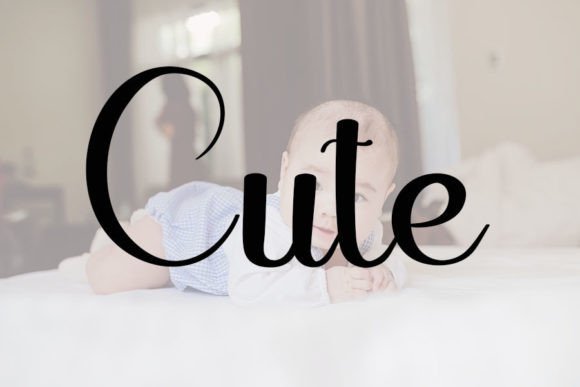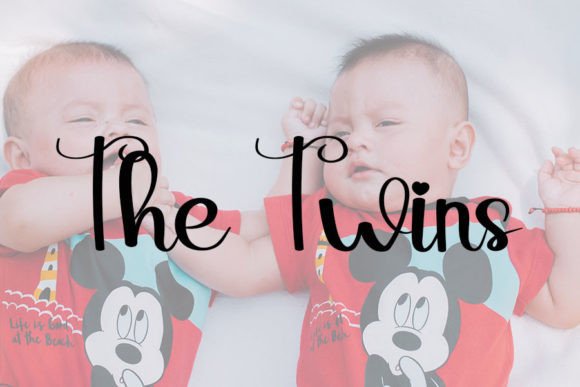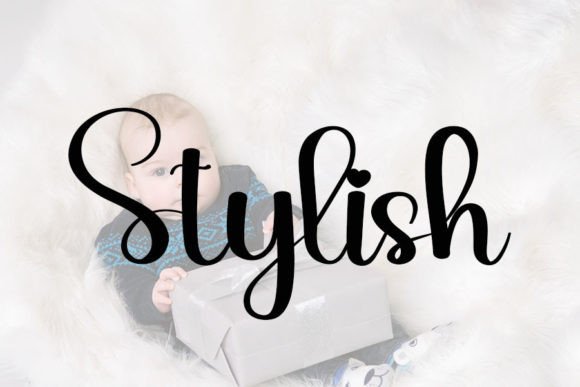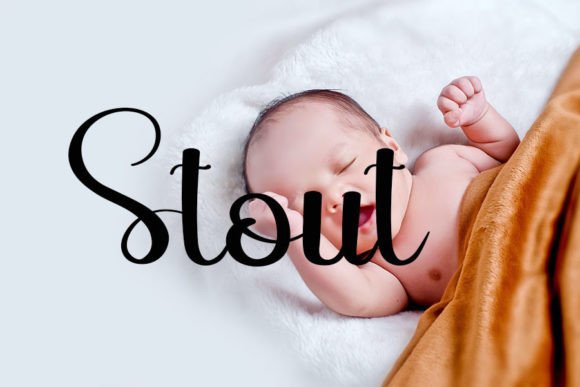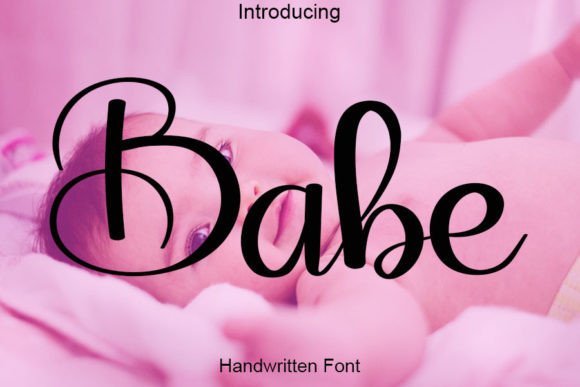
Babe Font: The Elegant and Timeless Choice for Your Design Projects
Are you looking for a font that exudes elegance and sophistication? Look no further than the Babe Font! This beautiful handwritten font is described by its elegant touch, making it perfect for designers and crafters who want to add a touch of class to their projects. With its incredibly distinct and timeless style, Babe Font is sure to fall in love with your favorite designs.
What Makes Babe Font So Special?
Babe Font is a unique and stunning handwritten font that is sure to make your designs stand out. Its elegant touch gives it a sophisticated and refined feel, making it perfect for a wide range of projects, from wedding invitations and branding materials to social media graphics and more. The font’s distinct style is both classic and modern, making it a versatile choice for any design project.
Key Features of Babe Font
- Elegant and Refined: Babe Font is a beautifully crafted handwritten font that exudes elegance and sophistication.
- Unique and Distinct: The font’s incredibly distinct style makes it perfect for designers who want to create unique and eye-catching designs.
- Timeless: Babe Font’s classic style ensures that it will never go out of fashion, making it a great investment for designers and crafters.
- Versatile: The font is perfect for a wide range of projects, from wedding invitations and branding materials to social media graphics and more.
How to Use Babe Font in Your Design Projects
Babe Font is easy to use and can be incorporated into a wide range of design projects. Here are a few ideas to get you started:
- Wedding Invitations: Use Babe Font to create beautiful and elegant wedding invitations that set the tone for a sophisticated and refined wedding.
- Branding Materials: Use the font to create stunning branding materials, such as logos, business cards, and letterheads, that reflect your brand’s elegant and refined personality.
- Social Media Graphics: Use Babe Font to create eye-catching social media graphics that stand out from the crowd and showcase your brand’s unique style.
- Stationery: Use the font to create beautiful and elegant stationery, such as notebooks, journals, and greeting cards, that make perfect gifts or personal accessories.
Tips for Getting the Most Out of Babe Font
Here are a few tips for getting the most out of Babe Font:
- Experiment with Different Sizes: Babe Font looks great in a variety of sizes, so don’t be afraid to experiment and find the perfect size for your design.
- Pair it with Other Fonts: Babe Font pairs well with a variety of other fonts, so try pairing it with a bold font for a striking contrast.
- Use it for Headings and Titles: Babe Font is perfect for headings and titles, so use it to add a touch of elegance and sophistication to your designs.
In conclusion, Babe Font is a beautiful and elegant handwritten font that is perfect for designers and crafters who want to add a touch of class to their projects. With its incredibly distinct and timeless style, Babe Font is sure to fall in love with your favorite designs. Whether you’re creating wedding invitations, branding materials, social media graphics, or stationery, Babe Font is a versatile and sophisticated choice that is sure to impress.